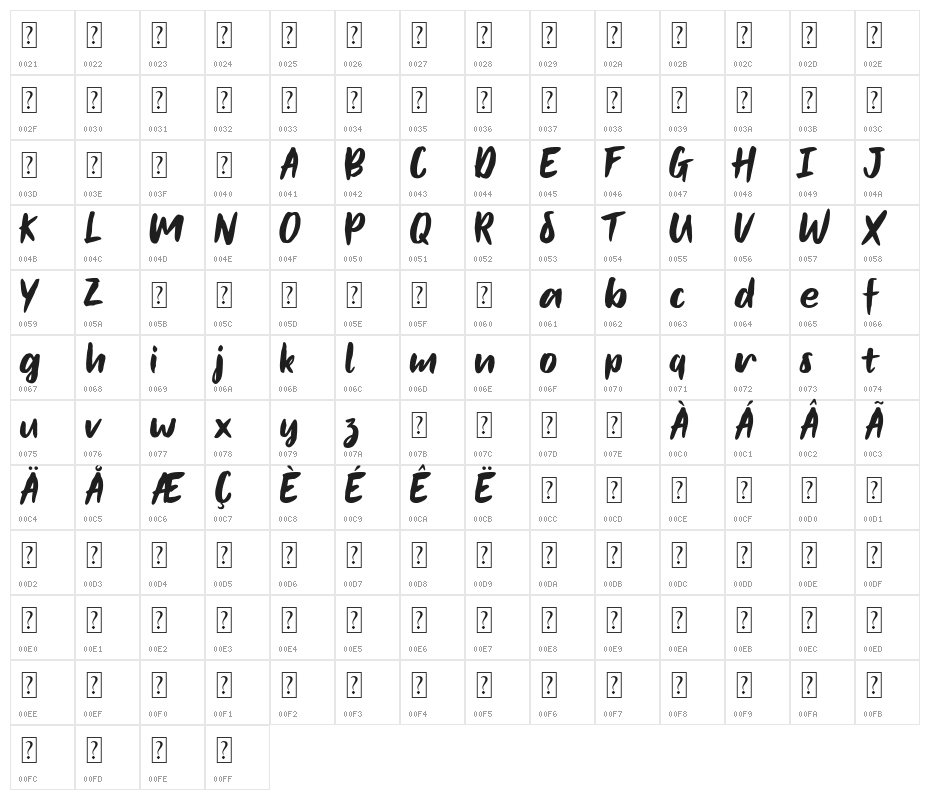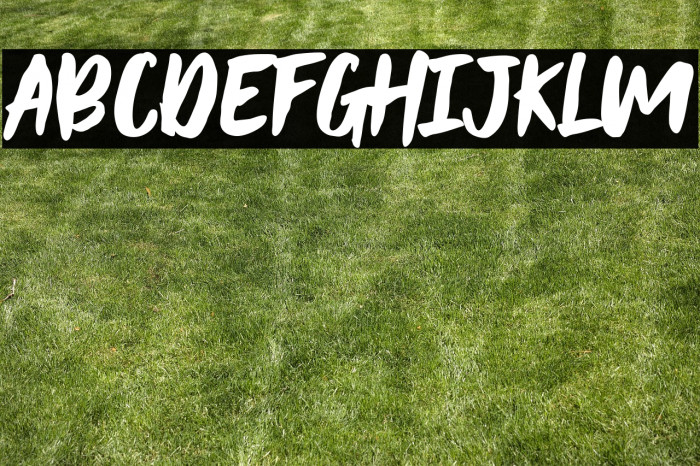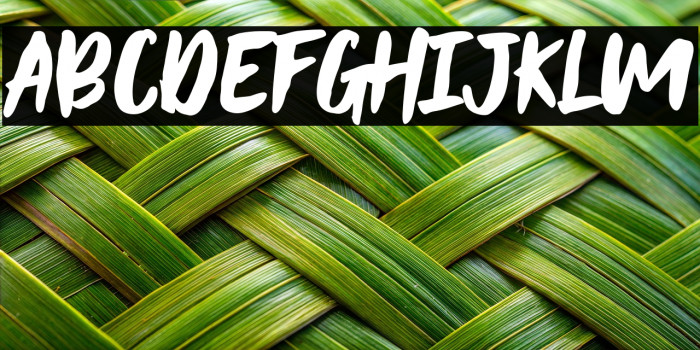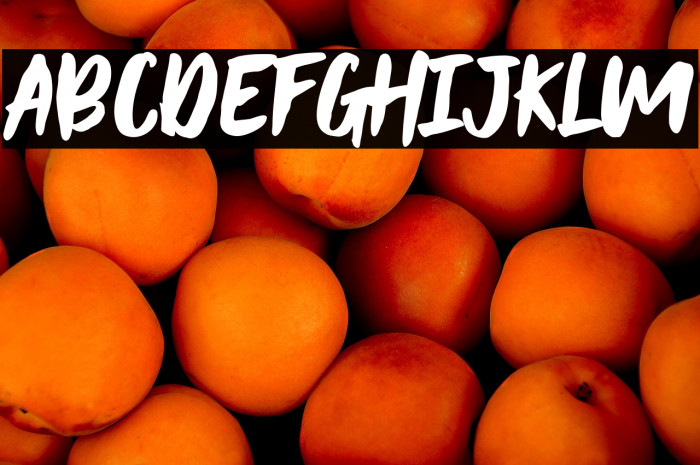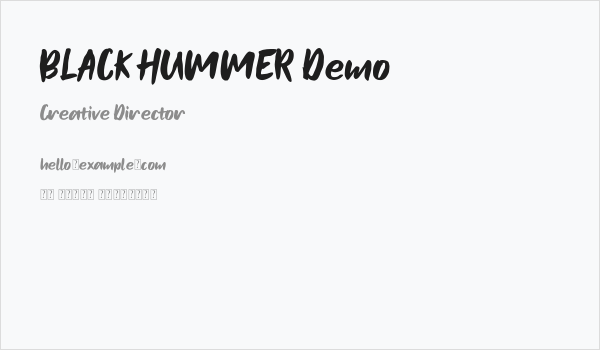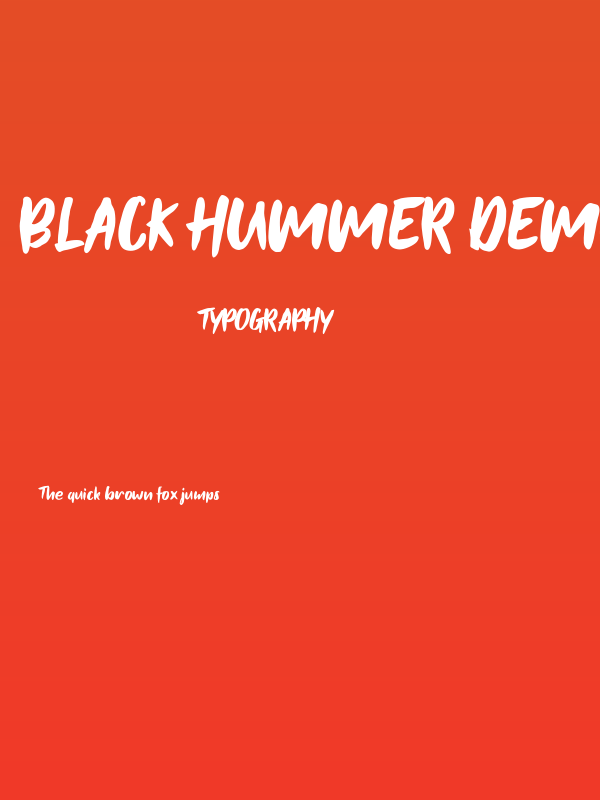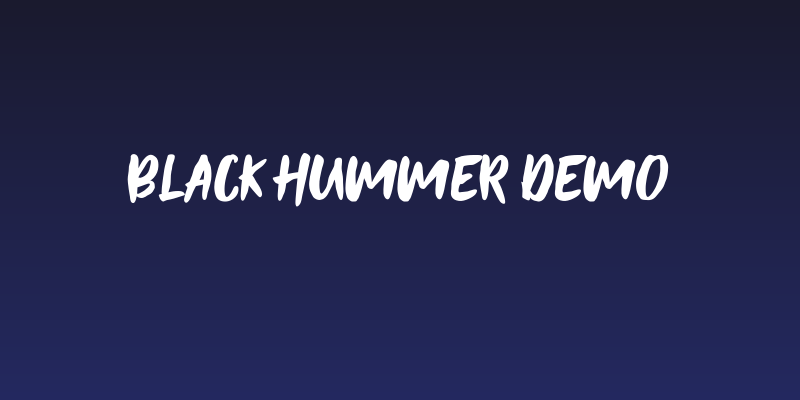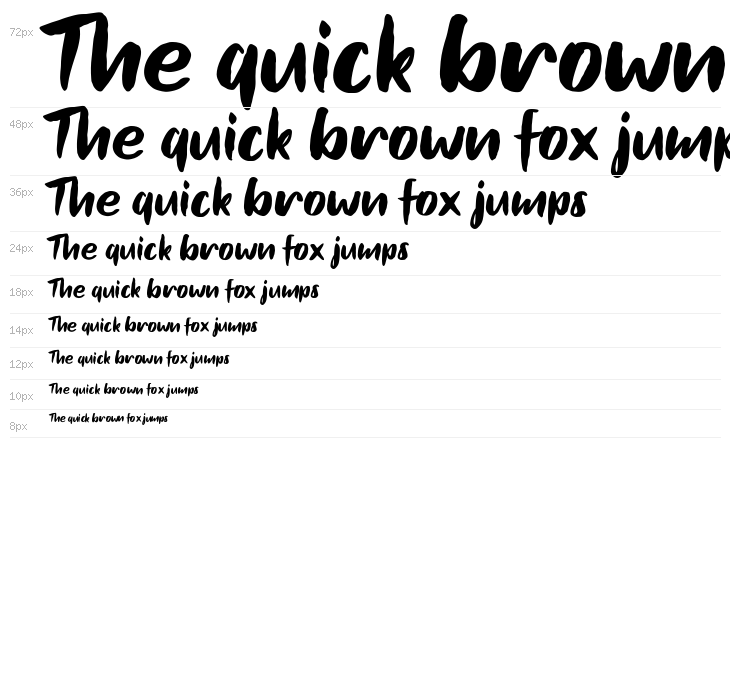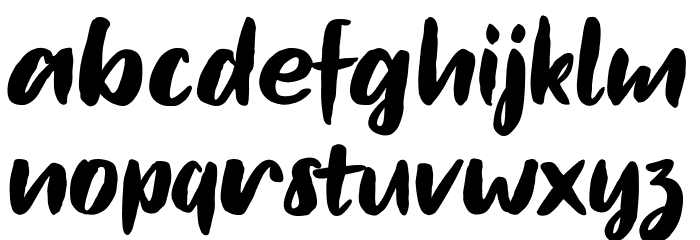
BLACK HUMMER Demo Font
BLACK HUMMER Demo Description
This font features a bold and expressive handwritten style, characterized by its thick, flowing strokes and dynamic curves. The uppercase letters are robust and energetic, while the lowercase letters maintain a consistent fluidity, enhancing the font's overall lively appearance. The design exudes a sense of creativity and spontaneity, making it ideal for projects that require a personal touch. Its boldness ensures high visibility, making it suitable for impactful headlines and attention-grabbing designs.
| Proposed Projects | Ideal for branding, posters, social media graphics, and creative invitations. |